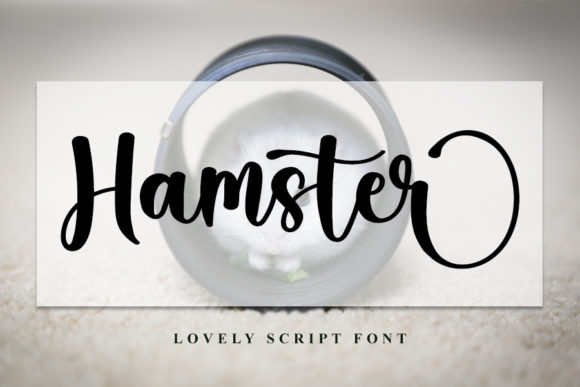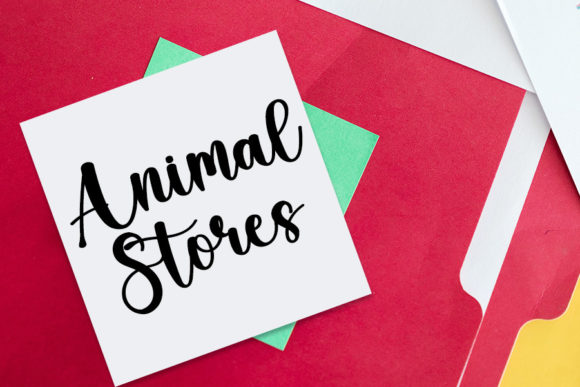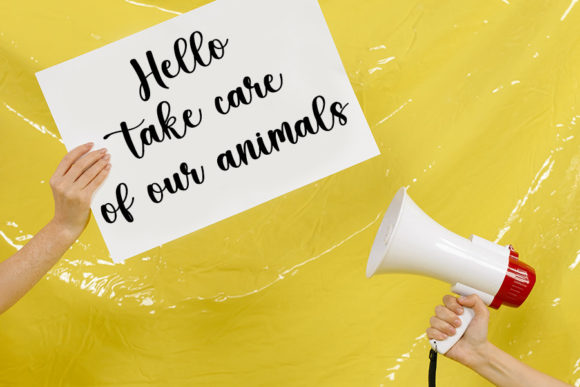
About Hamster Font
Hamster is a stylish script font with a contemporary atmosphere and impeccable form, inspired by a timeless classic calligraphy. This font is PUA encoded which means you can access all of the glyphs and swashes with ease!